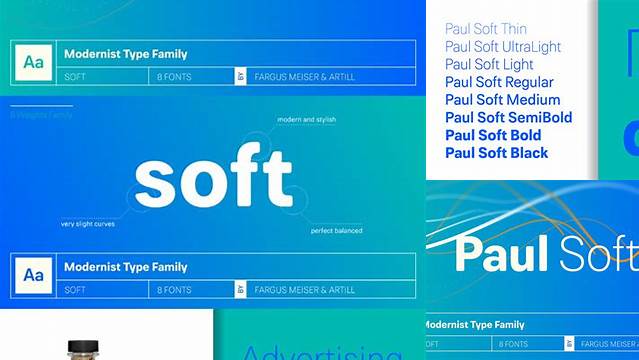
Introduction to Paul Grotesk Soft Font
Hey guys! Are you on the hunt for a versatile and modern font that adds a touch of elegance and softness to your designs? Look no further! Paul Grotesk Soft is here to save the day. This incredible typeface combines the clean lines of a geometric sans-serif with rounded edges, creating a friendly and approachable aesthetic. In this article, we'll dive deep into what makes Paul Grotesk Soft so special, where you can find it for free download, and how to make the most of it in your projects. So, buckle up and let's explore the world of Paul Grotesk Soft!
Paul Grotesk Soft is more than just a font; it's a design asset that can significantly elevate your work. Whether you're crafting a sleek website, designing eye-catching marketing materials, or putting together a professional presentation, this font has the flexibility to adapt to a wide range of applications. Its rounded terminals give it a softer, more approachable feel compared to traditional geometric sans-serif fonts, which often have sharp, angular edges. This makes Paul Grotesk Soft an excellent choice for projects that need to convey a sense of warmth and friendliness while maintaining a modern, professional look. Imagine using it for a children's book, a wellness website, or even a tech startup's branding—the possibilities are endless!
One of the key strengths of Paul Grotesk Soft is its readability. The carefully designed letterforms ensure that text remains clear and legible even at smaller sizes. This is crucial for body text in websites and print materials, where readability is paramount. At the same time, the font's distinctive character shines through in headlines and larger display sizes, making it a versatile choice for a variety of design needs. The balanced proportions and subtle curves create a harmonious visual rhythm that makes reading a pleasant experience. This attention to detail is what sets Paul Grotesk Soft apart and makes it a favorite among designers who value both aesthetics and functionality. Plus, who doesn't love a font that looks great and is easy on the eyes? It's a win-win!
Why Choose Paul Grotesk Soft?
So, why should you specifically choose Paul Grotesk Soft for your projects? Let's break it down. First off, its unique blend of geometric precision and soft edges makes it incredibly versatile. It’s not just another run-of-the-mill sans-serif; it has character! Second, it’s highly readable, which is super important for ensuring your message gets across clearly. And third, the fact that you can find it for free download makes it an absolute steal! Seriously, guys, a high-quality font like this can be a game-changer for your designs without breaking the bank.
The versatility of Paul Grotesk Soft stems from its ability to bridge the gap between modern and approachable design styles. Many geometric sans-serif fonts can feel cold or sterile due to their sharp angles and rigid forms. Paul Grotesk Soft, however, softens these harsh edges with its rounded terminals, creating a warmer, more inviting feel. This makes it suitable for a wide range of applications, from corporate branding to creative projects. Think about using it for a logo that needs to convey both professionalism and friendliness, or for a website that aims to be both modern and user-friendly. The possibilities are truly endless, and it’s this adaptability that makes Paul Grotesk Soft such a valuable asset in any designer's toolkit. It’s like having a Swiss Army knife for typography!
Readability is another critical factor that makes Paul Grotesk Soft a top choice. A beautiful font is useless if it's difficult to read, especially in body text. Paul Grotesk Soft excels in this area, thanks to its carefully designed letterforms and balanced proportions. The spacing between letters and the overall structure of each character have been meticulously crafted to ensure optimal readability at various sizes. This means you can confidently use it for long paragraphs of text without worrying about eye strain or comprehension issues. Whether you're designing a website, a brochure, or a book, Paul Grotesk Soft will help you deliver your message clearly and effectively. It’s like the font equivalent of a good pair of glasses—it just makes everything clearer!
How to Use Paul Grotesk Soft in Your Designs
Okay, you've got your hands on Paul Grotesk Soft – awesome! Now, how do you actually use it? This font is incredibly versatile, making it suitable for a wide range of projects. Think about using it for headlines, body text, logos, and even app interfaces. Its clean, modern look makes it a perfect fit for both digital and print designs. Experiment with different weights and styles to see what works best for your specific needs. Don't be afraid to get creative!
In conclusion, Paul Grotesk Soft is a font that offers a compelling blend of style and functionality. Its clean, geometric forms and rounded edges create a unique visual identity that can elevate a wide range of design projects. Whether you're working on branding, web design, or print materials, Paul Grotesk Soft provides a versatile and reliable typographic solution. Its readability makes it suitable for both headlines and body text, and its modern aesthetic ensures that your designs will look fresh and contemporary. By following the tips and best practices outlined in this article, you can effectively incorporate Paul Grotesk Soft into your projects and create visually stunning results. So, what are you waiting for? Download Paul Grotesk Soft today and start exploring its creative potential! It’s time to take your designs to the next level with this fantastic free font. Happy creating, everyone!